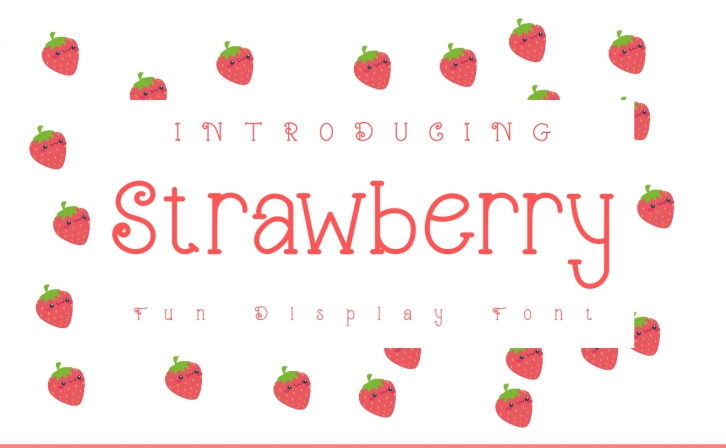
Strawberry is a cute, cheery and playful display font. It can easily be matched to an incredibly large set of projects, so add it to your creative ideas and notice how it makes them stand out!